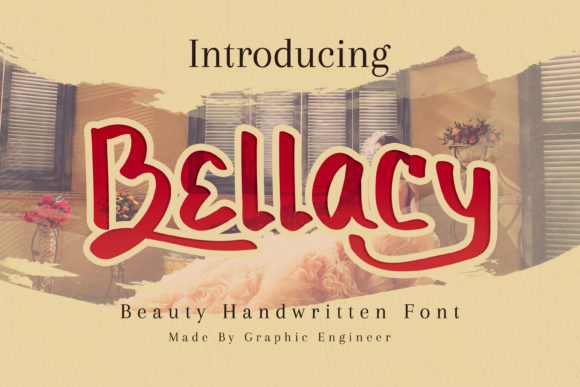
Bellacy Font: The Ultimate Expression of Joy and Playfulness!
Unleash your creativity and embark on a typographic journey like never before with Bellacy Font, the enchanting creation of Graphic Engineer. This awe-inspiring display font is a symphony of sweetness and friendliness, designed to infuse your designs with a touch of whimsy and charm. With its distinctive handcrafted charm, Bellacy Font effortlessly captures the carefree spirit of handwritten notes, transporting you to a world of joy and playfulness.
From captivating video titles that dance across the screen to eye-catching social media posts that command attention, Bellacy Font is your ultimate weapon in the world of visual communication. Its versatility knows no bounds, seamlessly adapting to a myriad of design projects, from cheerful invitations to playful branding. Let Bellacy Font be your guide as you create designs that resonate with audiences, leaving an enduring impression that lingers in their minds.
Dive into a world of endless possibilities with Bellacy Font, where creativity flourishes and imagination runs wild. Whether you're a seasoned designer or just starting your typographic adventure, Bellacy Font is your perfect companion, ready to elevate your designs to new heights of visual delight.